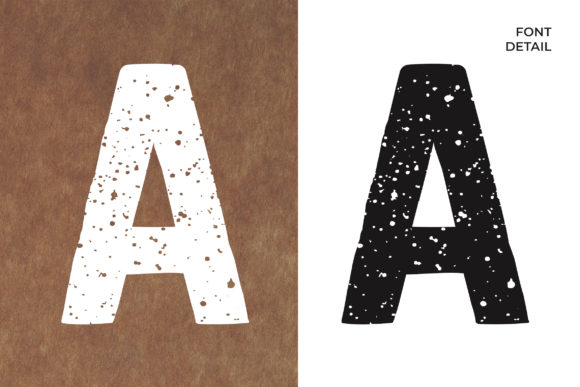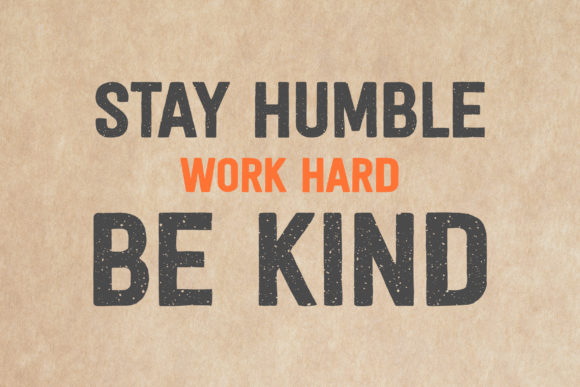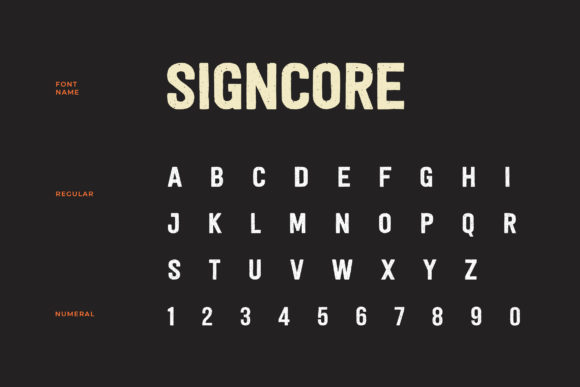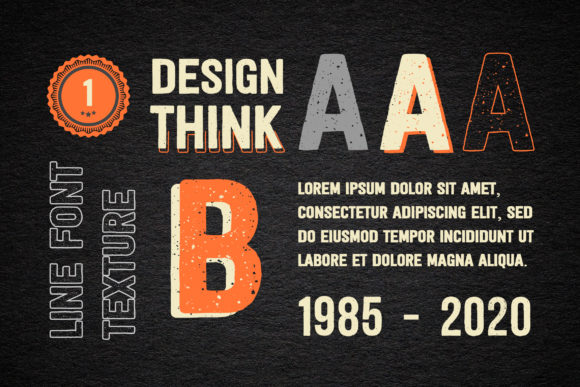
Unlocking the Power of Signcore Font
Have you ever stared at a blank canvas, trying to bring a creative project to life, only to be held back by the perfect font? That moment of frustration is a familiar feeling for many designers. But what if I told you there’s a font that can elevate your designs and give you the confidence to take on any project?
Introducing the Signcore Font, a vintage styled and bold display font that’s sure to add a touch of nostalgia and sophistication to your designs. With its strong, confident, and dynamic feel, this font is a design resource that’s hard to ignore. Whether you’re working on a high-quality logo, creating a stunning headline, or need a font for a transparent background, the Signcore Font is a versatile tool that’s sure to become a go-to favorite.
Key Features of Signcore Font
- High-quality design resource suitable for creative projects, with a unique blend of modern and vintage elements.
- Designed to be highly legible, even at small font sizes, making it ideal for use in signage, labels, and other small-scale applications.
- Customizable and highly versatile, with a wide range of styles and variations to suit different design needs and preferences.
Honest Review: Signcore Font
One of the things that works well for me is the high quality of the font. The Signcore Font is clean and crisp, making it perfect for projects where I need a bit of sophistication. I also appreciate the transparent background feature, which gives me the flexibility to use it on any design I’m working on.
Here are some of the things that I like about the Signcore Font:
- Highly legible and easy to read
- Great for both print and digital designs
- Extensive character set, including international characters
However, I do have to mention a few limitations:
- Not as many style options as some other fonts
- May not be suitable for projects where a more dramatic font is needed
- Only available in a limited number of weights
Overall, I’m really impressed with the Signcore Font and would definitely recommend it to designers looking for a reliable, high-quality font.